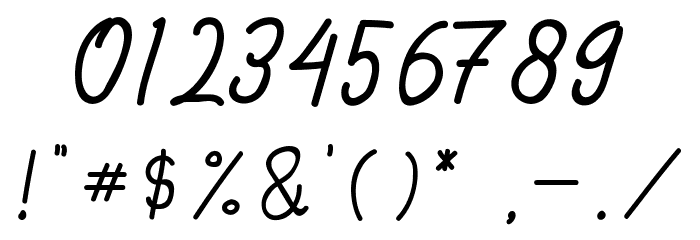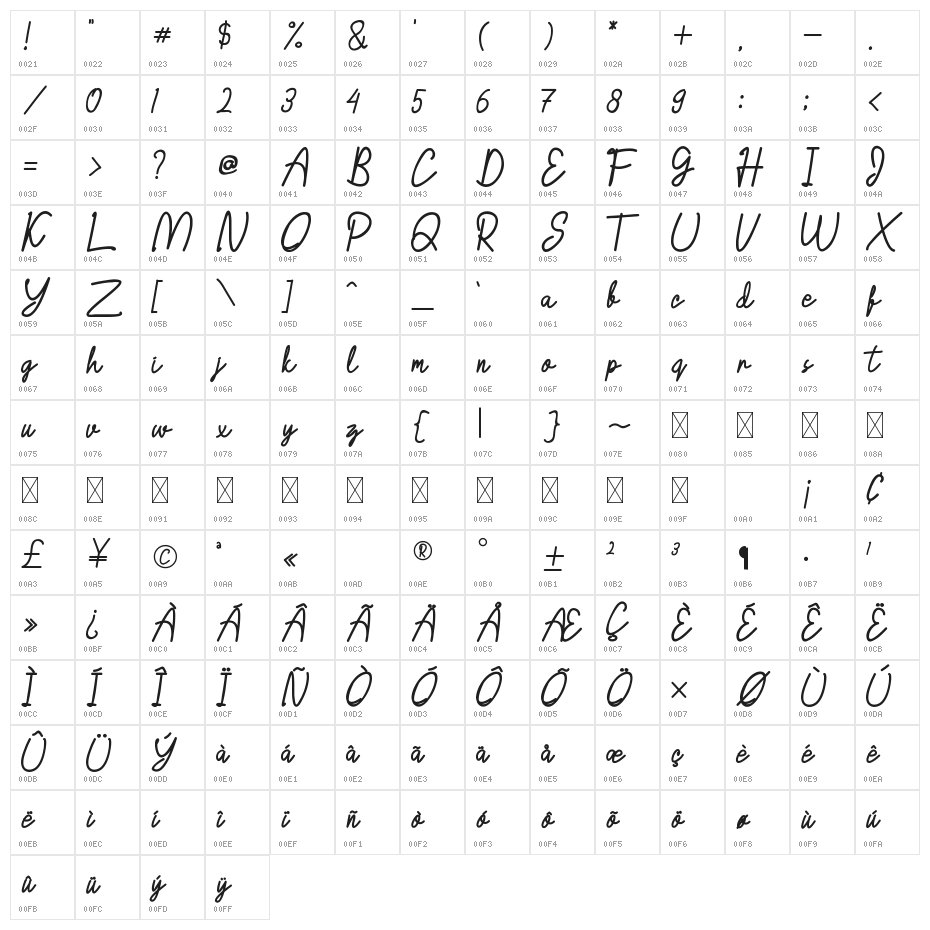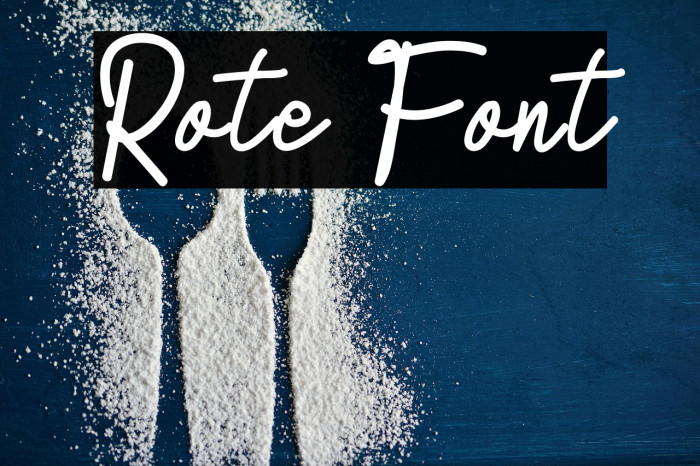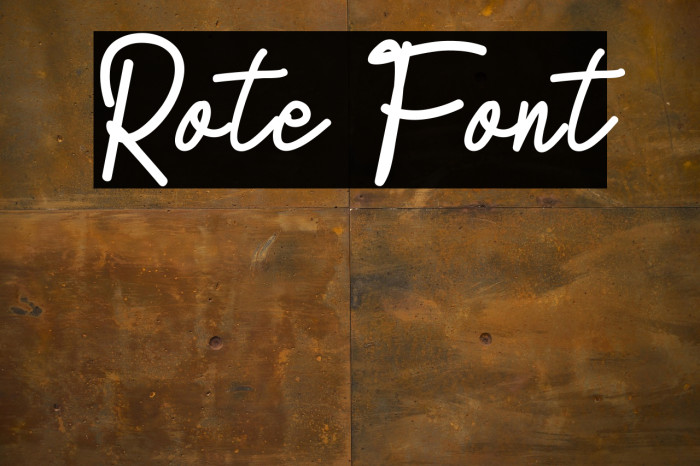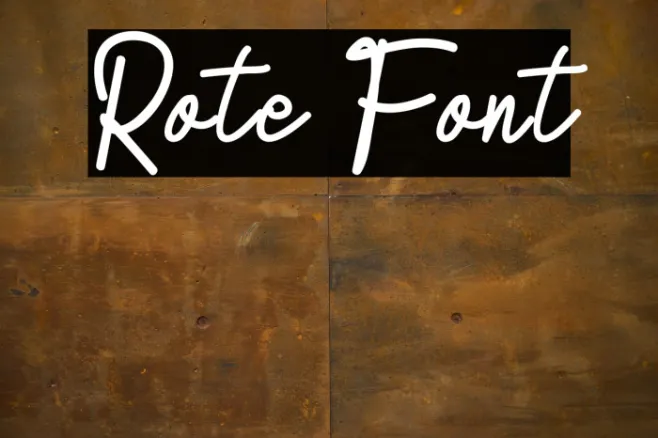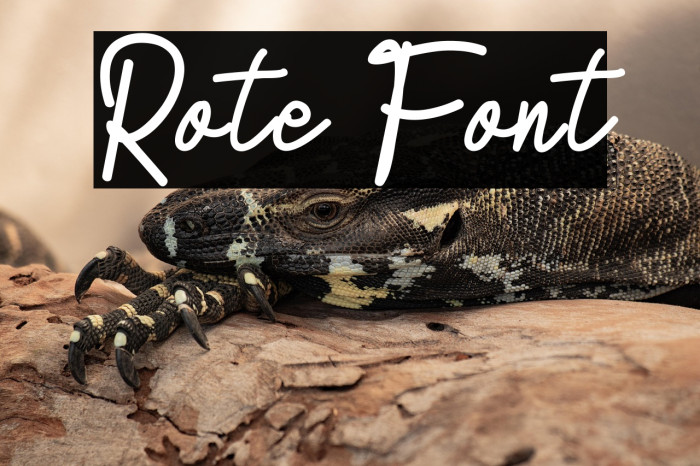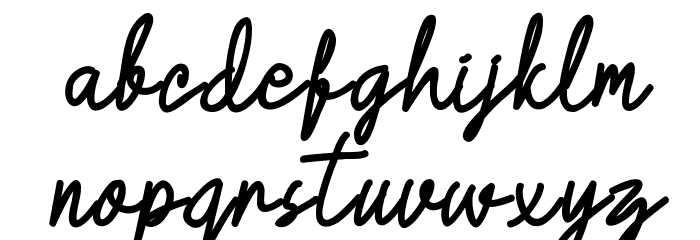
Rote Font
Rote Description
This font exudes a casual and friendly vibe with its handwritten style. The letters are slightly slanted, giving it a dynamic and fluid appearance. The strokes are smooth and consistent, with a medium thickness that maintains readability while adding a touch of elegance. The uppercase letters are distinct and slightly larger than the lowercase, which are more connected and flowing. Numbers and special characters are designed to match the overall style, ensuring a cohesive look across all text. This font is perfect for projects that require a personal touch, such as invitations, greeting cards, or creative branding.
| Overall Style | Casual, Elegant |
| Proposed Projects | Ideal for invitations, greeting cards, personal branding, and creative projects. |